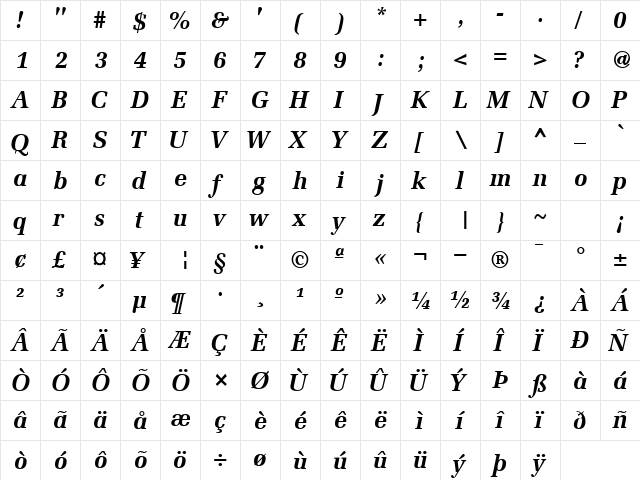
ProtocolSSK Bold Italic Font Preview
Design Context for ProtocolSSK Typeface
ProtocolSSK takes a measured approach to typography — its balanced proportions and neutral character make it a reliable workhorse for both digital and print work. The dynamic lean of this cut emphasises speed and emphasis in any layout. Its bold stroke weight gives it real presence on the page.
Pro Tip: Try ProtocolSSK for annotation and caption copy alongside an upright companion — the contrast in angle creates a dynamic but ordered typographic system.